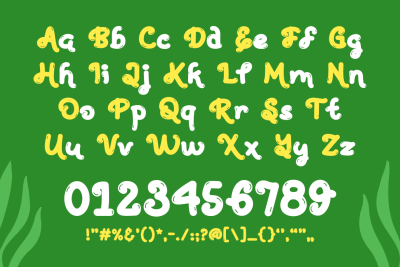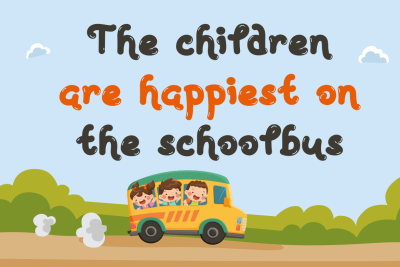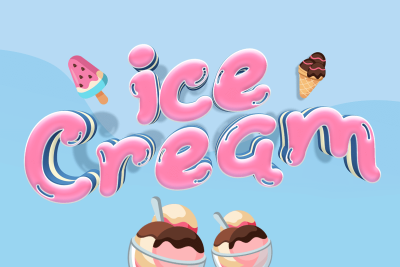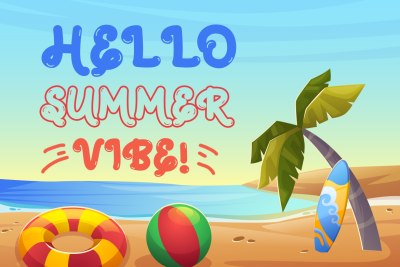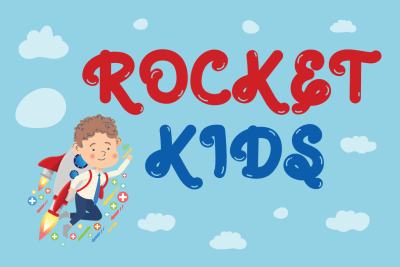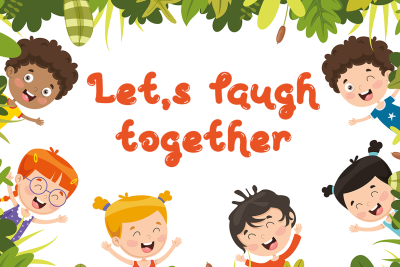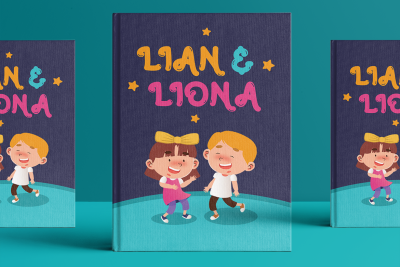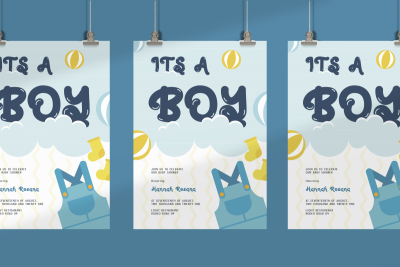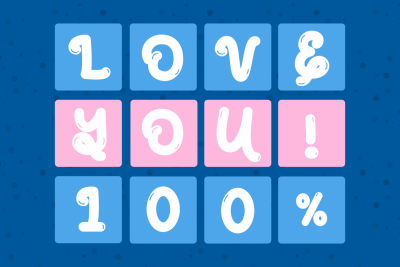
Funny Font BANDOW is a playful typeface designed to bring joy to creative projects. With its bubbly, rounded letters and quirky, hand-drawn look, it instantly creates a friendly feel. Additionally, each character has an organic touch, making the font warm and full of personality.
Moreover, the bold yet soft curves add movement, making the letters appear to dance. Tiny decorative details, such as small drops and playful curves, give it a modern twist. Despite its fun nature, BANDOW remains easy to read. As a result, it blends a fresh, youthful charm with a versatile design.
This font works well for various creative needs. Whether you are designing a fun logo, greeting card, or social media post, BANDOW adapts effortlessly. Its rounded edges and smooth shapes ensure an inviting look. Furthermore, you can pair it with a simple sans-serif for contrast, or use it alone for bold typography.
Overall, BANDOW is perfect for playful and engaging designs. It brings happiness and excitement to posters, branding, merchandise, and digital content.
Who Should Use Funny Font BANDOW ?
BANDOW suits designers, illustrators, and content creators who love cheerful typography. It is especially ideal for:
- Childrenโs Brands & Products โ Perfect for toys, books, and educational materials, as its playful energy appeals to kids.
- Social Media Creators โ Great for Instagram posts, YouTube thumbnails, and other fun digital content. In particular, it helps make content more eye-catching.
- Event Planners & Invitation Designers โ Ideal for birthday parties, baby showers, and festive events. Consequently, it adds a joyful touch to invitations.
- Branding & Packaging Designers โ A great fit for candy brands, toy stores, or ice cream shops. Since it has a fun and lighthearted feel, it enhances brand identity.
- Teachers & Educators โ Perfect for worksheets, classroom decor, and learning resources. Not only is it engaging, but it also makes materials more visually appealing.
- Handmade & DIY Creators โ Suits crafting projects, stickers, and custom prints. Therefore, itโs a fantastic choice for personalized designs.
In summary, BANDOW is more than a fontโitโs a burst of fun and positivity. If you need a happy and lighthearted typeface, this one is perfect for you!